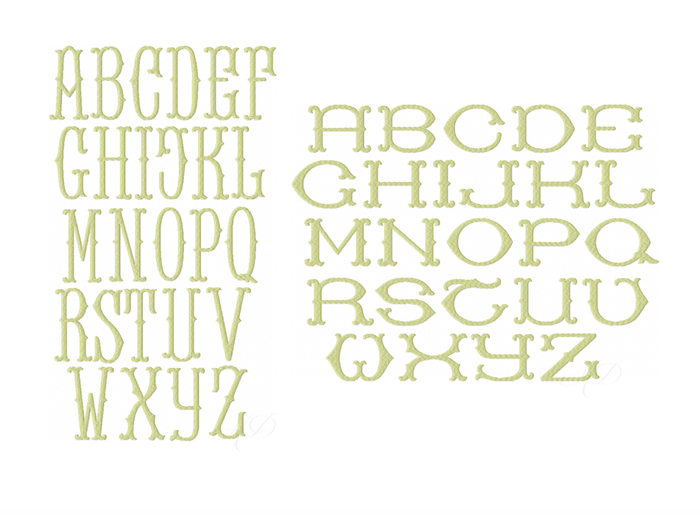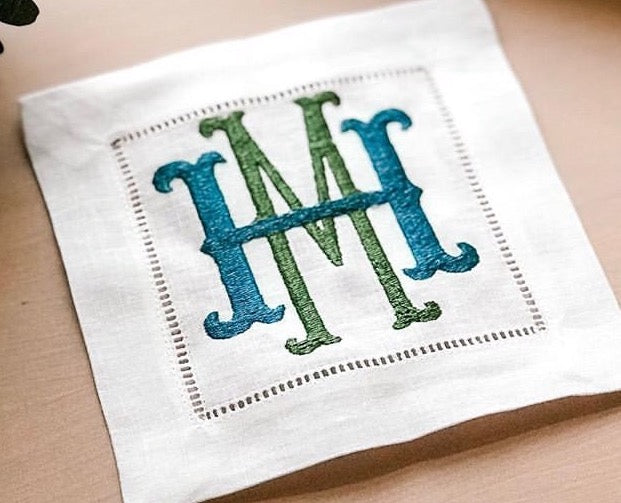
Barrett Fill Stitch Embroidery Font
Our Barrett Fill Embroidery Package includes one color flat stitch letters in two coordinating letters to create a monogram in four separate sizes. There are 52 letters in each size, 26 taller middle letters and 26 shorter wide letters.